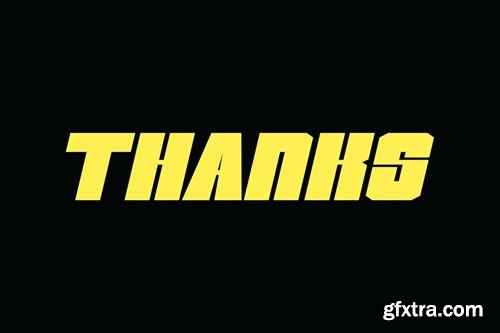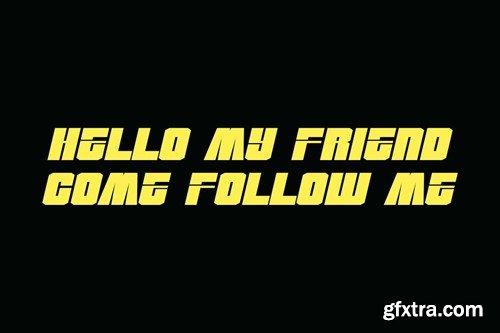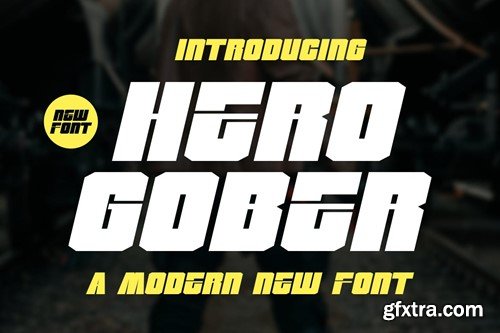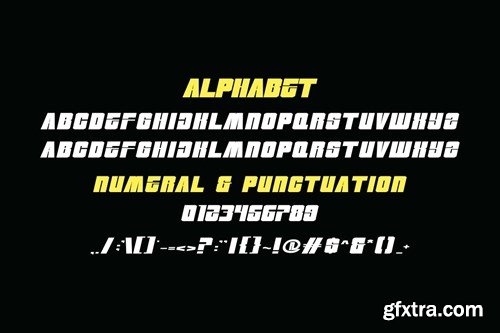
英雄戈伯 - 现代新字体 XM7D5ZB
Hero Gober - - Modern New Font XM7D5ZB
Hero Gober - - Modern New Font
Proudly presenting our new product Hero Gober - - Modern New Font is a modern and authentic font. Perfect for professional and product branding needs, this font is suitable for any branding project such as quotes, logos, blog headers, posters, ribbons, letters, invitations, stationery, etc... Designed to be versatile and flexible that can be used on a variety of projects and media. extraordinary in a variety of contexts.
Uppercase